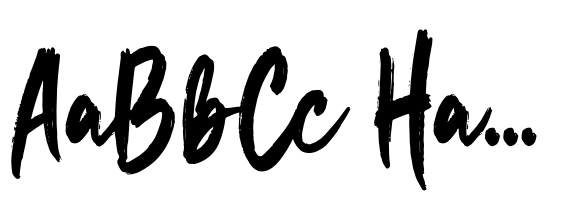
Savanna
by NJ Studio
The Savanna Font Family was designed by Siti Nurjanah and published by NJ Studio. Savanna contains 1 styles. More about this family
Savanna a brush font. It features ligatures characters that will take your projects to the next level!
Designers: Siti Nurjanah
Foundry: NJ Studio
About NJ Studio